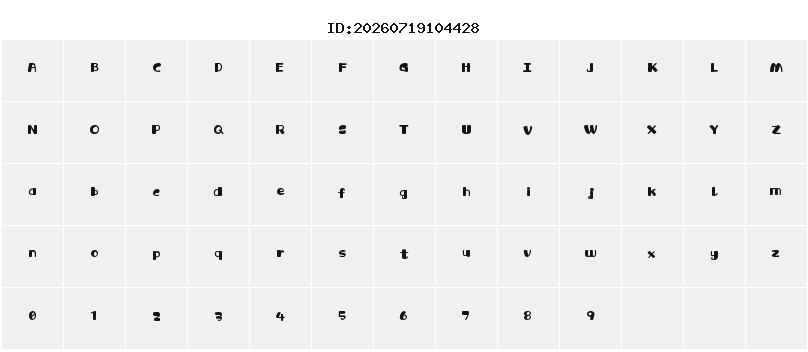
也字工廠馬戲團創意體 Preview
About 也字工廠馬戲團創意體.TTF
也字工廠馬戲團創意體.TTF is a modern, elegant sans-serif font designed for ultimate readability and visual harmony. Perfect for branding, headlines, web design, and print materials.